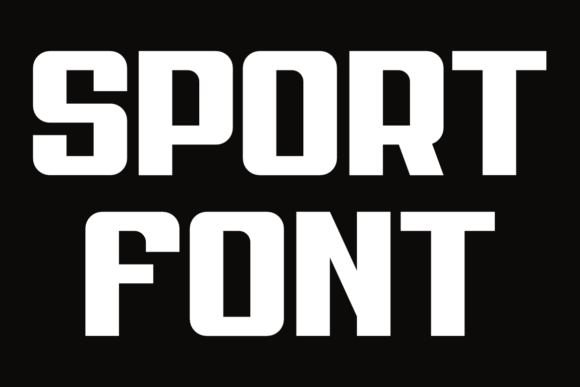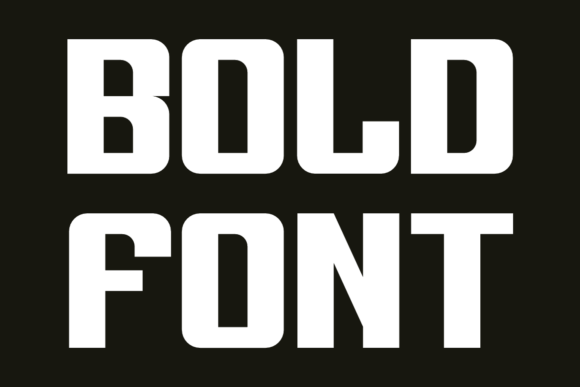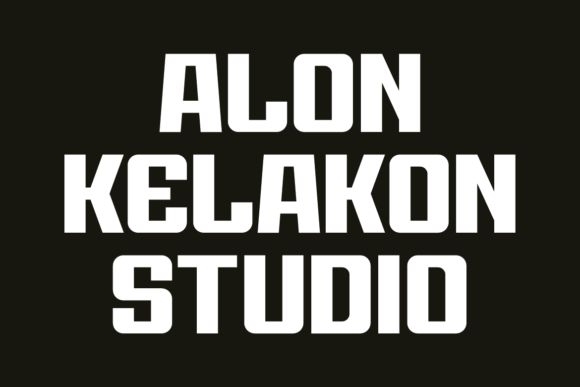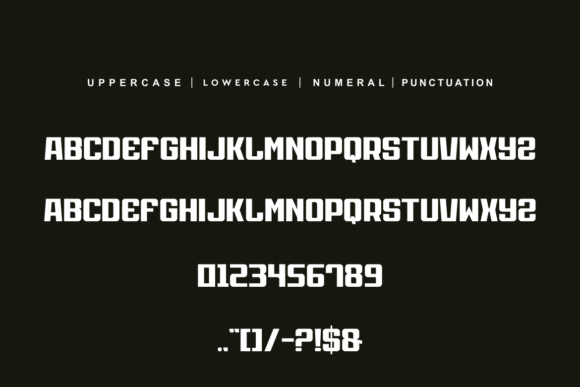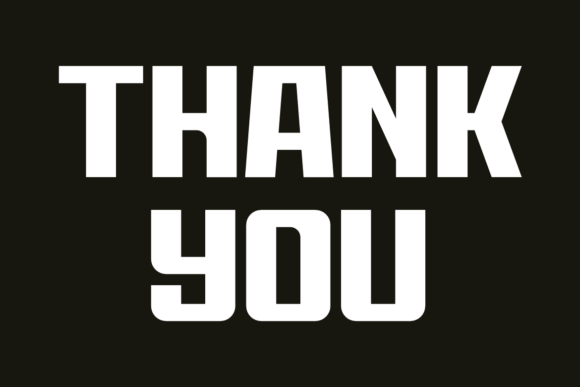
Introduction to Kolas Gepolar Font
Remember that moment when your creative juices start flowing, and you can envision the perfect design for your project? The thrill of bringing your idea to life is exhilarating, and the right font can make all the difference. That’s where the Kolas Gepolar Font comes in – an incredibly cool display font that adds a modern and whimsical touch to your work.
As a designer, you’re constantly on the lookout for high-quality design resources that can elevate your creative projects. The Kolas Gepolar Font is a valuable addition to your design toolkit, offering a unique style that’s perfect for adding a touch of personality to your designs. Whether you’re working on a free download or a paid project, this font is sure to impress.
Key Features of Kolas Gepolar Font
- Characterized by its bold and geometric style, the Kolas Gepolar Font is perfect for making a statement in graphic design.
Honest Review: Kolas Gepolar Font
As a designer, I’m always on the lookout for high-quality design resources to elevate my creative projects. The Kolas Gepolar Font caught my attention, and I decided to give it a try.
What works well about the Kolas Gepolar Font is its sleek and modern aesthetic. It features a bold and playful style that’s perfect for adding a touch of personality to your designs. The font is also highly customizable, allowing you to adjust the size, color, and spacing to suit your needs. Additionally, the transparent background makes it easy to layer over other design elements.
Some of the standout features of the Kolas Gepolar Font include:
- ⚠️ Limited font weights, which may limit its versatility in certain designs
- ⚠️ Not suitable for small text sizes, as it can become difficult to read
Overall, the Kolas Gepolar Font is a great addition to any designer’s toolkit. While it may have some limitations, its high-quality design and customizable features make it an excellent choice for creative projects. If you’re looking for a bold and playful font, the Kolas Gepolar Font is definitely worth considering.
The Kolas Gepolar Font is a high-quality design resource perfect for creative projects. With a transparent background, this font offers a versatile solution for various applications.
Tips for Getting the Most Out of Kolas Gepolar Font
To get the most out of the Kolas Gepolar Font, experiment with different font sizes, colors, and combinations to create unique and eye-catching designs.
The Kolas Gepolar Font is ideal for a variety of creative projects, including:
- Graphic designs for social media and websites
Yes, the Kolas Gepolar Font is designed to work seamlessly on a transparent background, making it perfect for creative projects that require a high level of design flexibility. The font’s transparent background also allows for easy layering and composition.